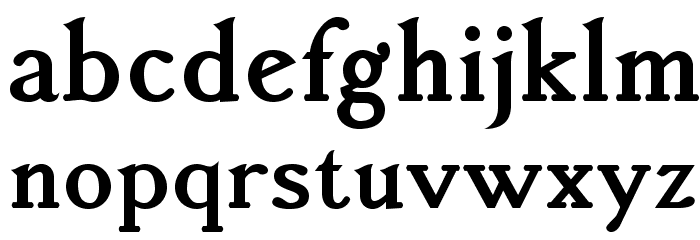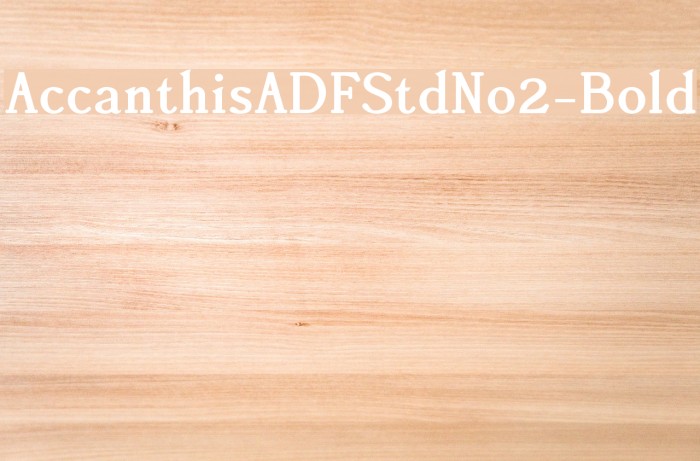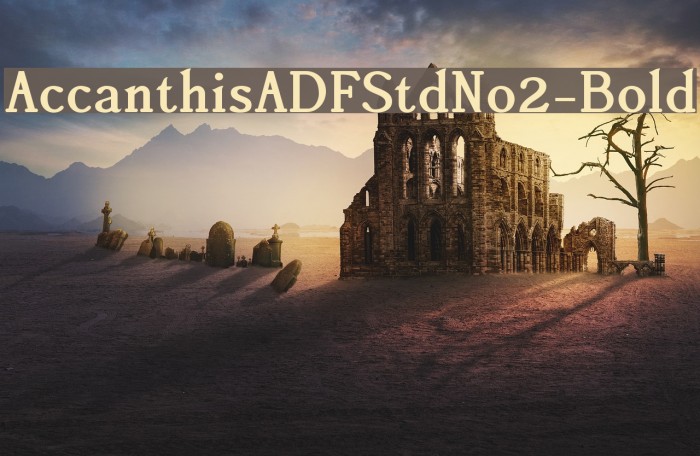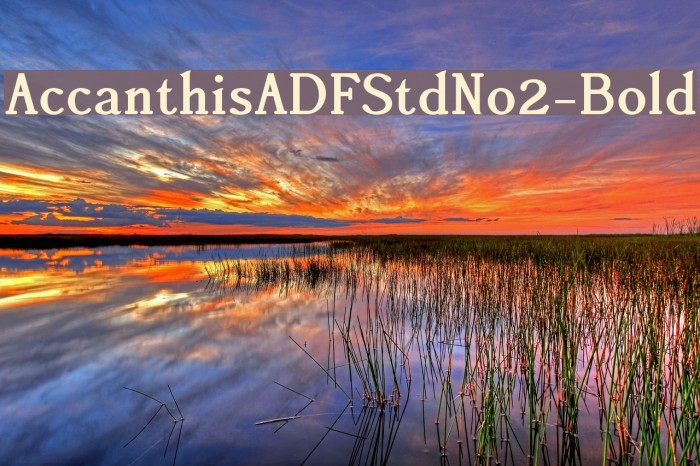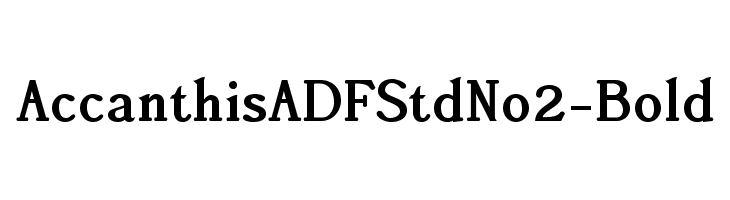
AccanthisADFStdNo2-Bold Font
This font features a classic serif style with a bold weight, offering a strong and authoritative presence. The characters are well-defined with a moderate contrast between thick and thin strokes, providing a traditional yet elegant appearance. The serifs are pronounced, adding to the font's readability and timeless appeal. The uppercase letters are tall and commanding, while the lowercase letters maintain a consistent and harmonious flow. The numerals are clear and distinct, making them suitable for both text and display purposes. The special characters are crafted with precision, ensuring versatility in various design contexts.
A bold, classic serif font with moderate contrast and pronounced serifs.
- Proposed Projects: Ideal for book covers, editorial design, branding, and formal invitations.
- Category: Serif
- Overall Style: Classic